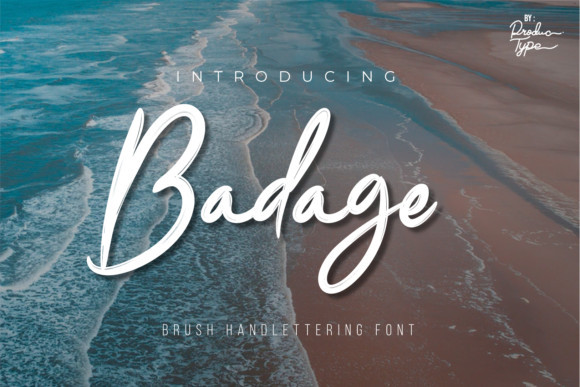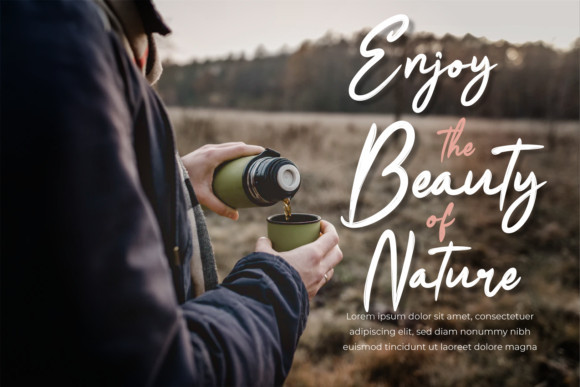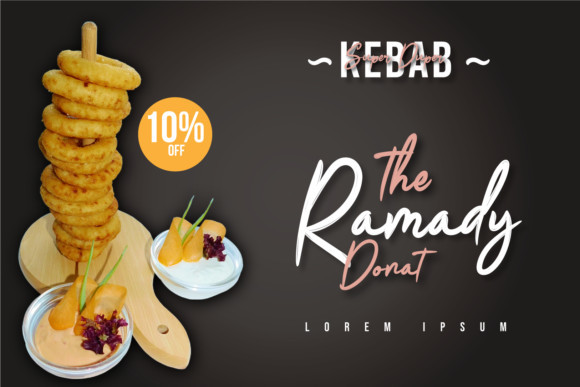
Badage Font
Badage is an elegant and flowing handwrittten font. A little bit quirky, this font is the perfect fit for all of your logos, branding, social media, and crafty DIY projects.